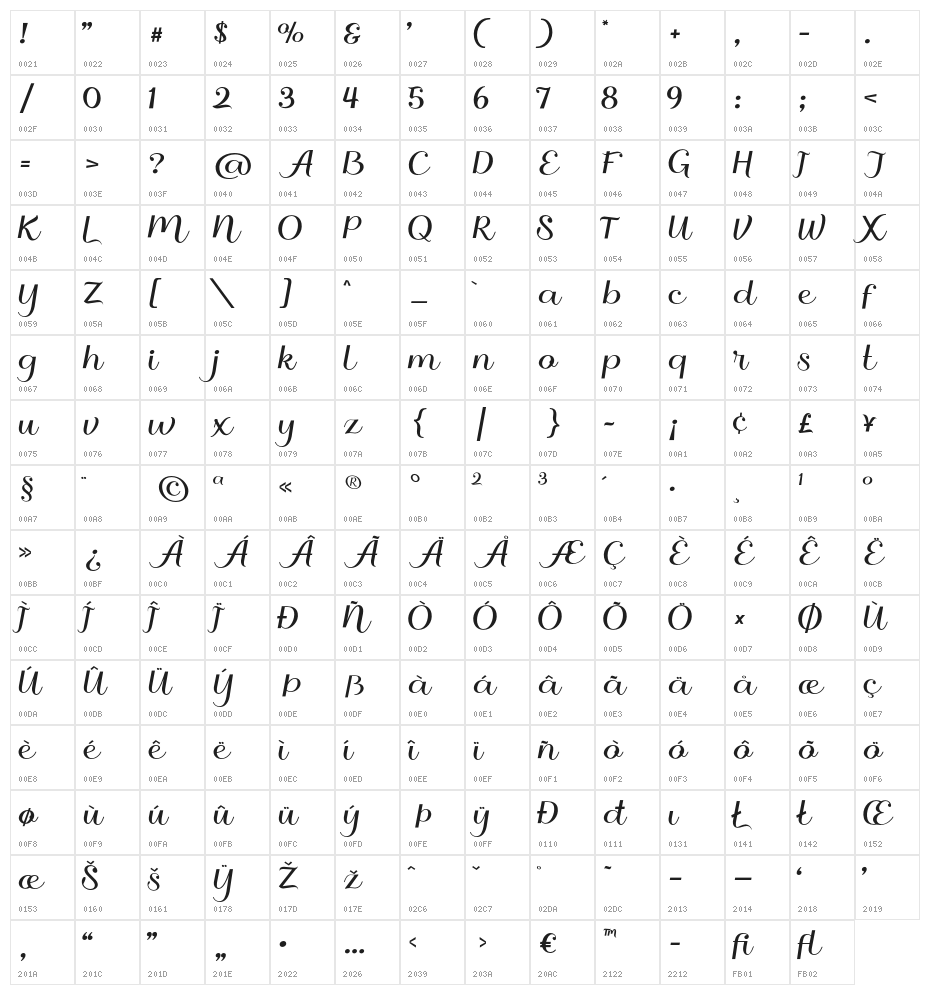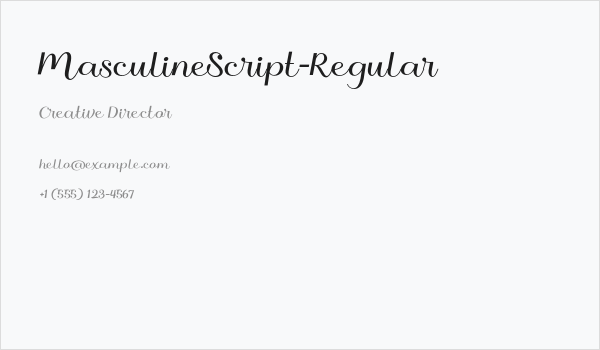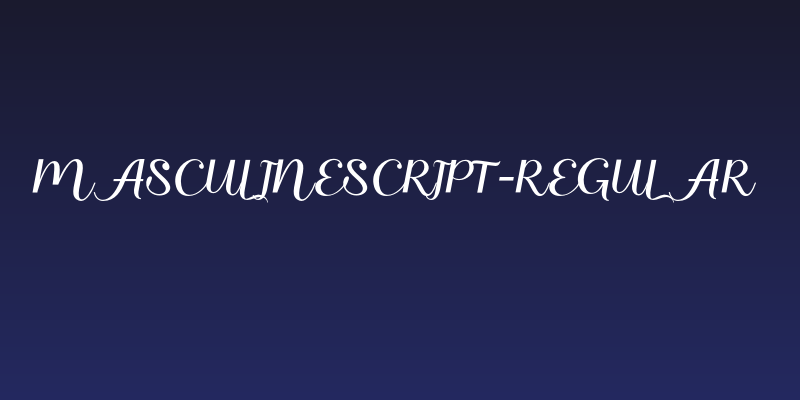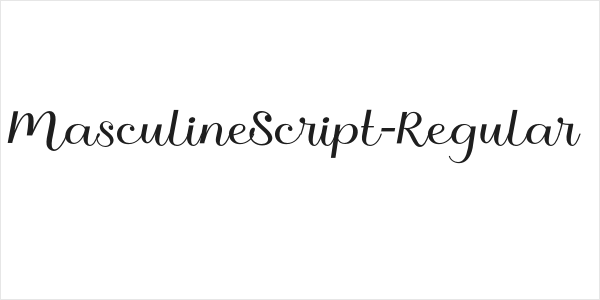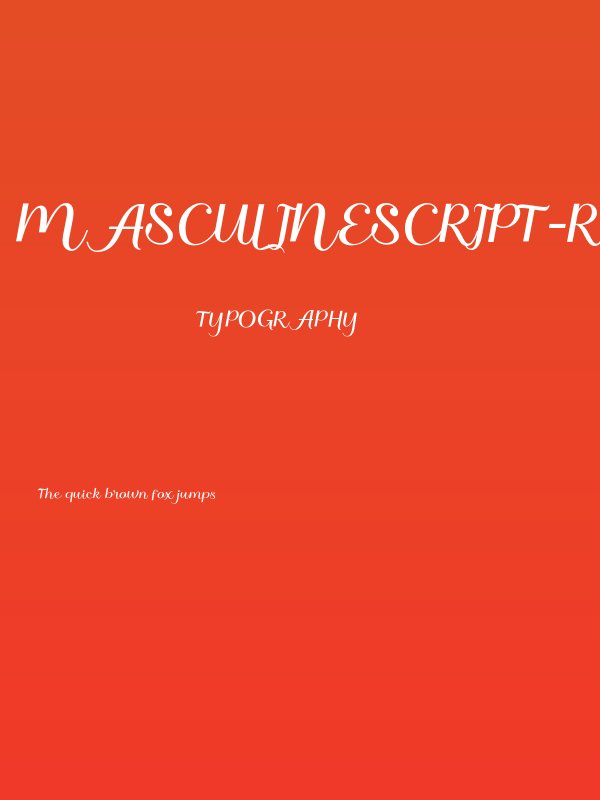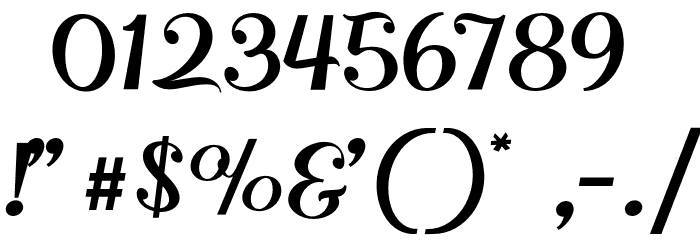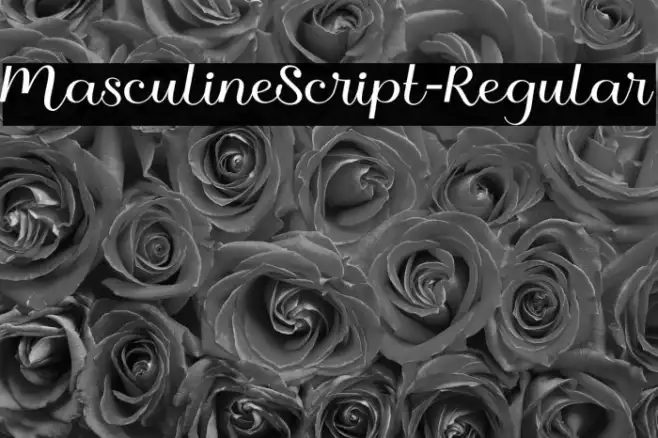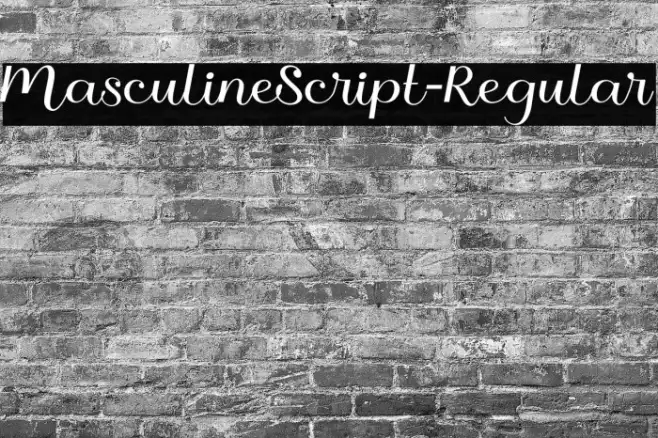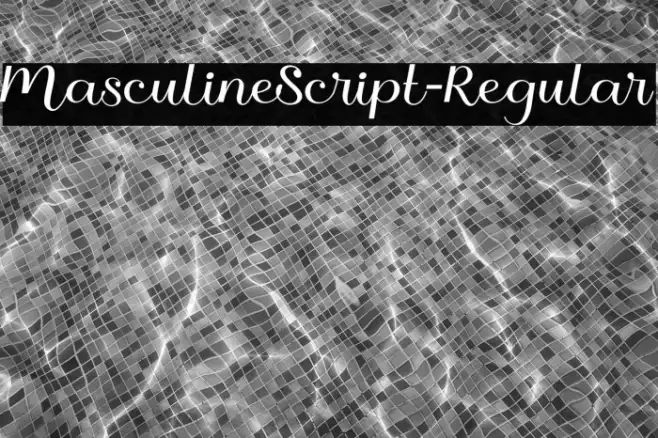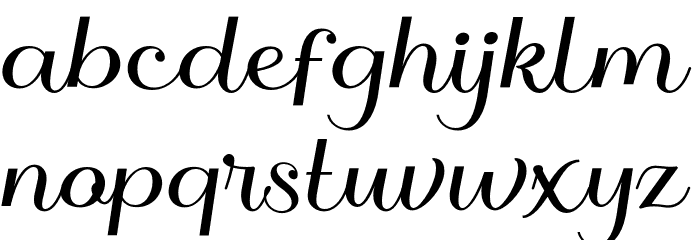
MasculineScript-Regular Font
MasculineScript-Regular Description
This font exudes a sophisticated and elegant script style, characterized by its flowing, cursive letterforms. The uppercase letters are bold and sweeping, with a distinct flair that adds a touch of drama. The lowercase letters maintain a consistent flow, enhancing readability while retaining an artistic flair. Numbers and special characters are designed with the same attention to detail, ensuring a cohesive look across all text elements. The font's overall appearance is both classic and modern, making it versatile for various design needs.
| Font Family | Masculine Script |
| Overall Style | Elegant, Classic |